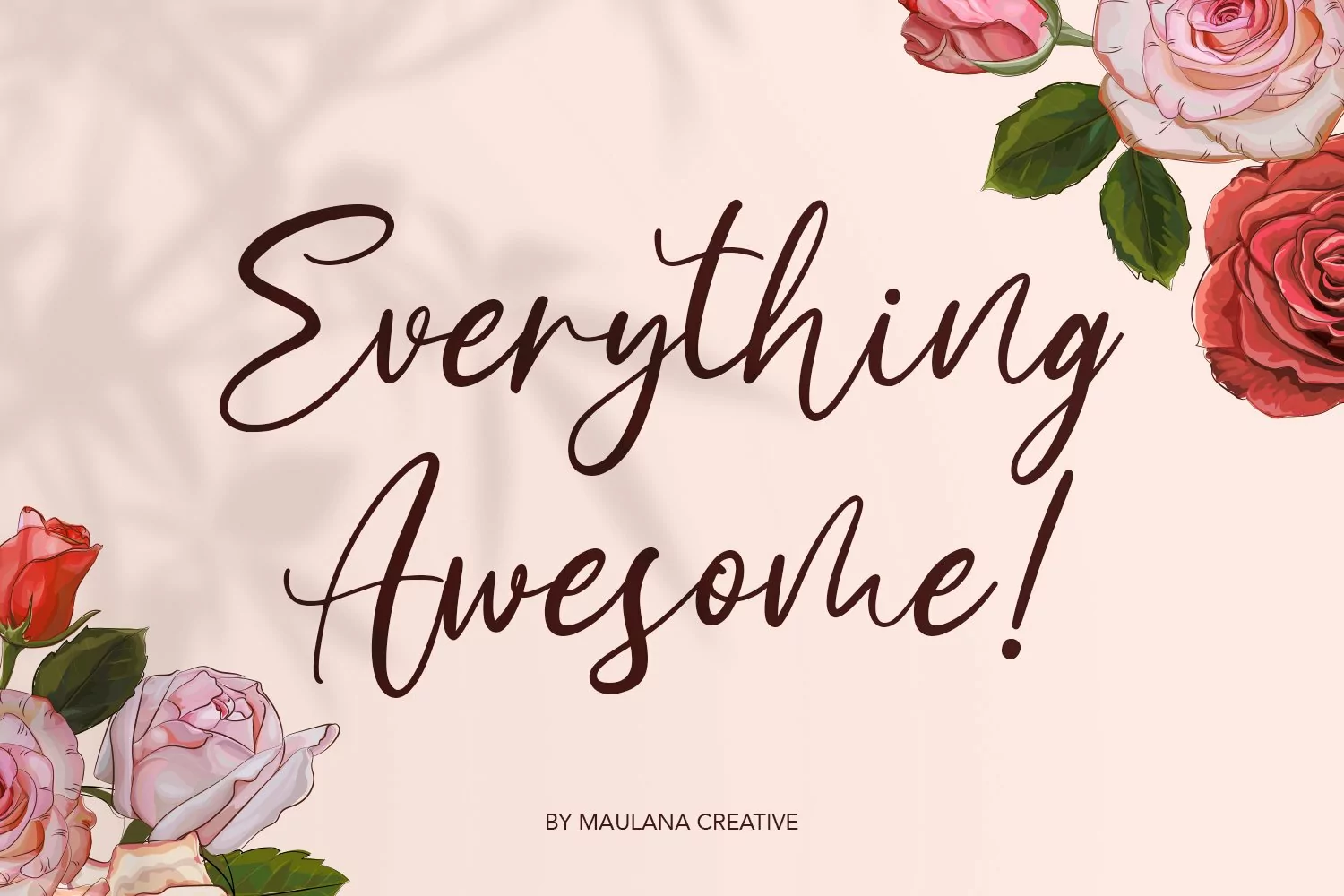
Give your designs an authentic handcrafted feel. "Acrosmyth" is perfectly suited to signature, stationery, logo, typography quotes, magazine or book cover, website header, clothing, branding, packaging design and more. Included Ligatures.
Ligature:
al, bi, cr, di, ee, ii, kl, ll, on, oo, rr, ss, tt, th